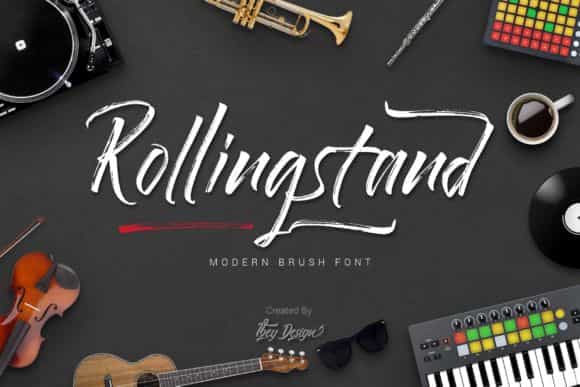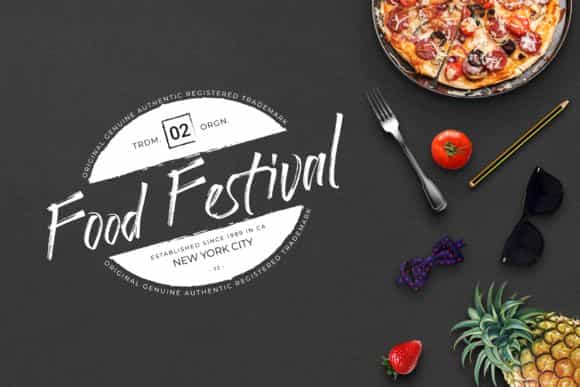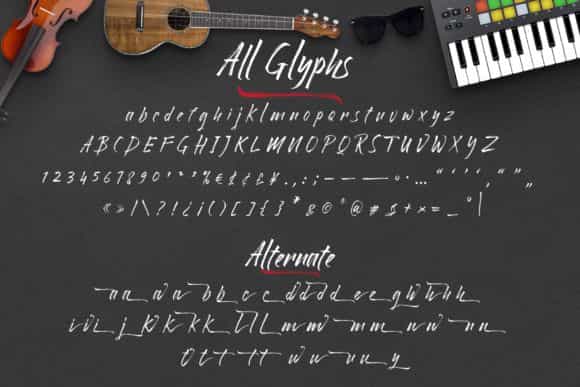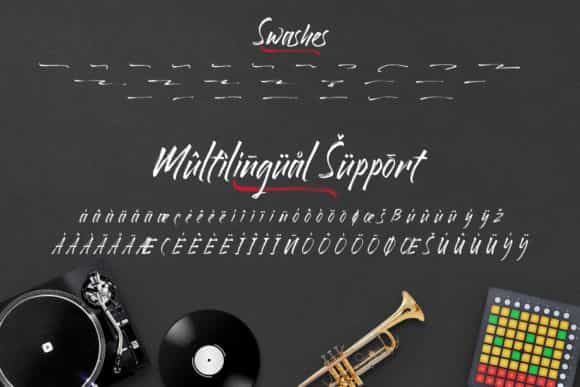
Introducing Rollingstand Font! It has been created and uploaded by ibeydesign. It is a handwritten typography font type which is modern and has fast drying ink strokes. It is ideal for photography, watermarks, social media posts, ads & commercials, logos and brands, invitations, merchandise, stationery, wedding, packaging, event and many other purposes!